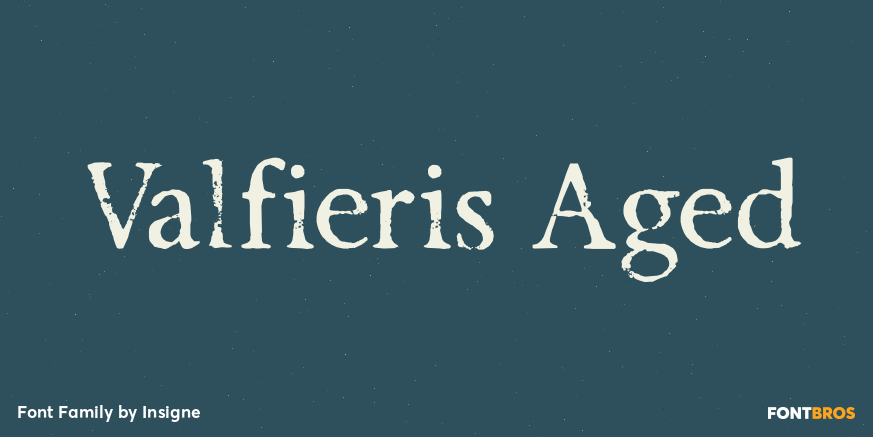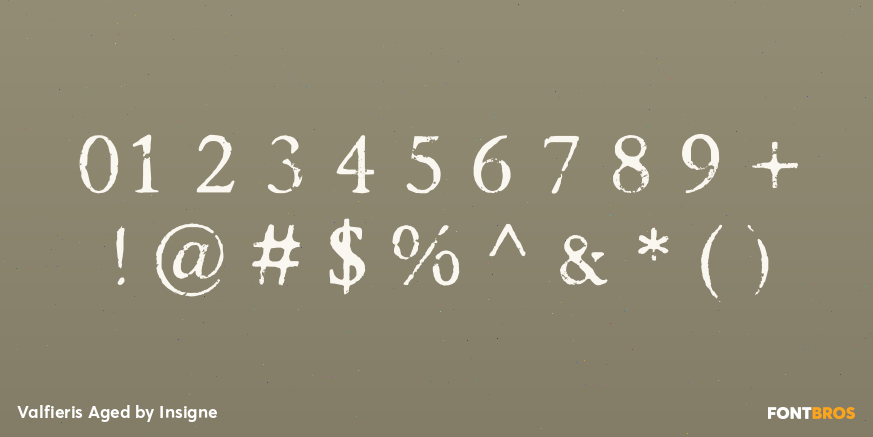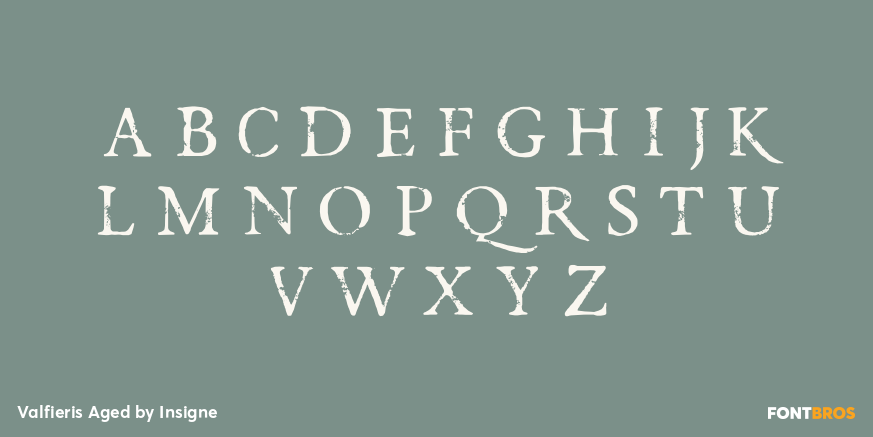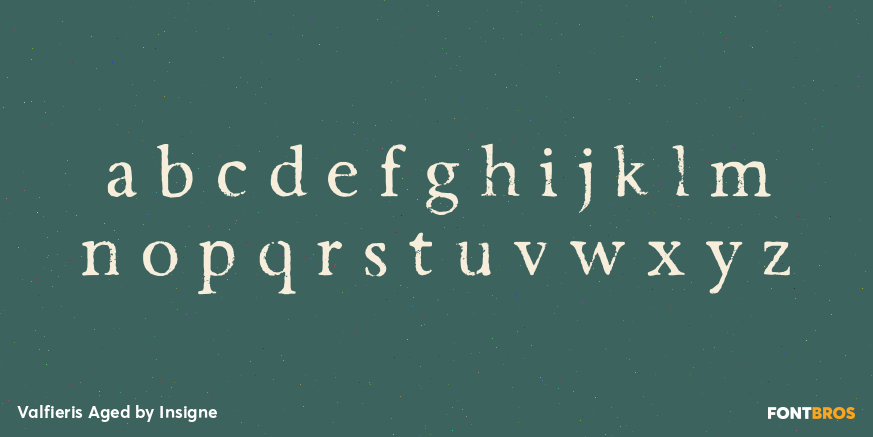
Valfieris Aged
Font Family by Insigne
Valfieris Aged looks as though it just came off an antique printing press. Ink has pooled in the serifs and on the corners, and the metal did not make full contact with the paper in center of the letters.
Valfieris Aged includes a full set of OpenType alternates for every character in the English alphabet, swash alternates, ending swashes, titling alternates, oldstyle figures, historical forms, small caps and 64 discretionary ligatures. These ligatures are used to alter the appearance of the type so that the printing appears realistic and without any duplicate letters to detract from the antique appearance.